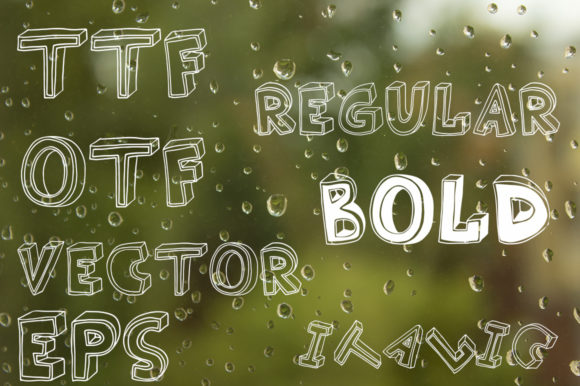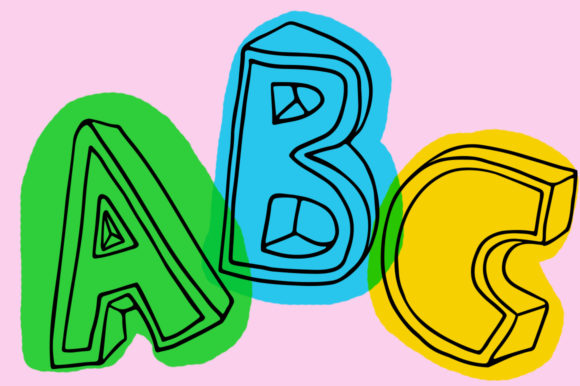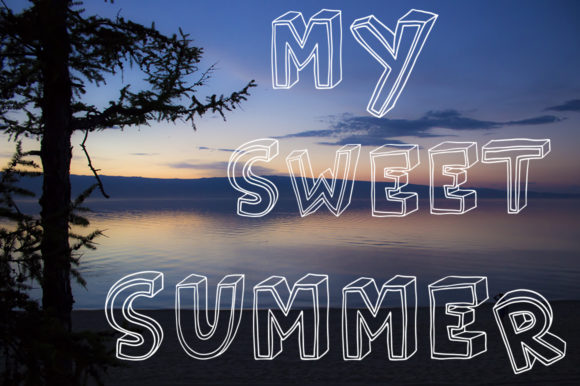
Introduction to 3D Sketch Font
3D Sketch is a cool and trendy looking display font.
Urban styled and cool, this font will appeal to a wide range of design ideas Have fun with this beautiful font and explore its endless variations.